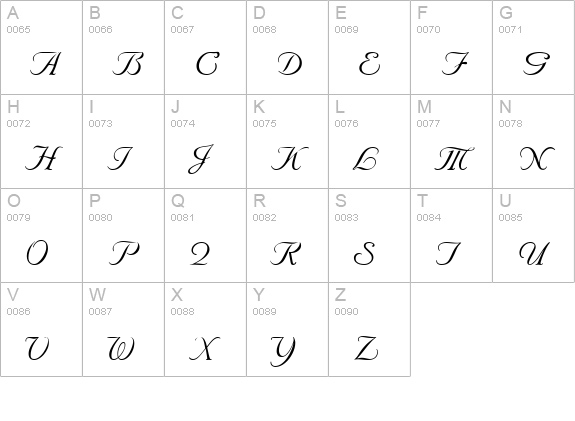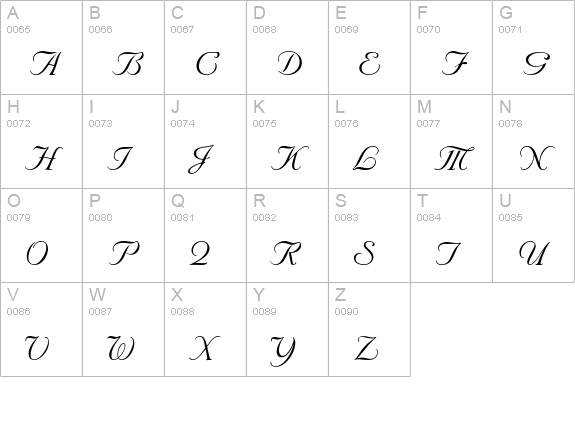
Nuance Italic is a distinctive, italic variant in the Nuance typeface family \xE2\x80\x94 well suited to design and typography projects.
Nuance Italic is a beautifully designed font that exudes elegance and sophistication. Its sleek and stylish italicized characters add a touch of flair to any project, making it perfect for use in branding, editorial design, and more. The graceful curves and unique details of Nuance Italic lend a sense of refinement and creativity to your work. What's even better is that Nuance Italic is available for free download at FontsMarket.com. This means you can enhance your designs with this stunning font without having to spend a dime. Don't miss out on the opportunity to elevate your projects with the timeless charm of Nuance Italic - download it today and let your creativity shine!